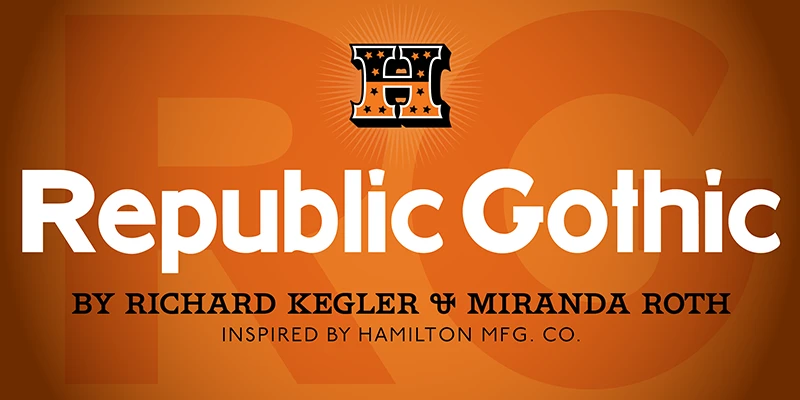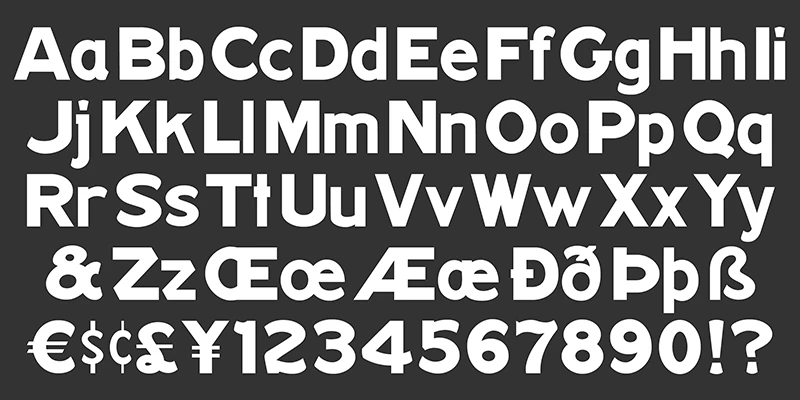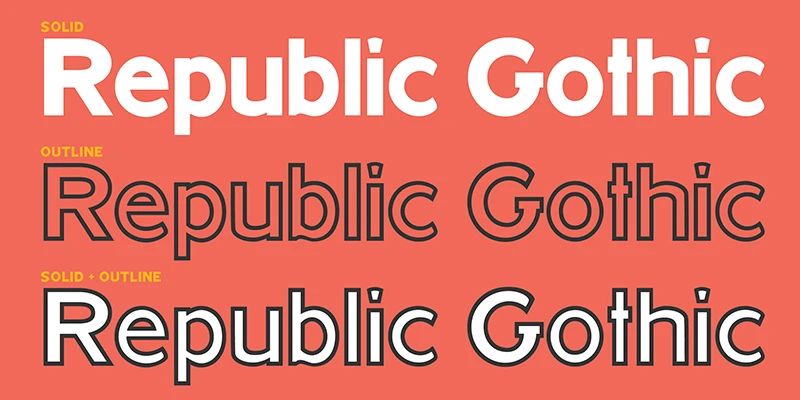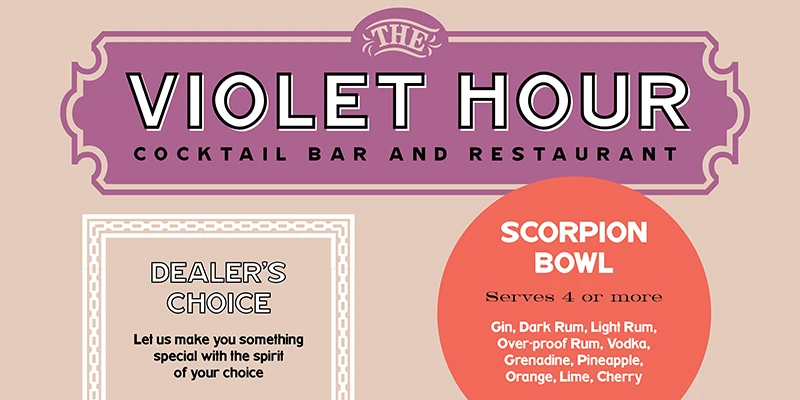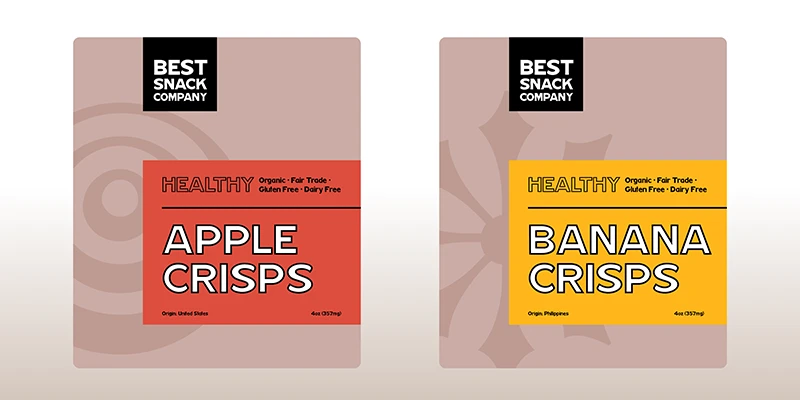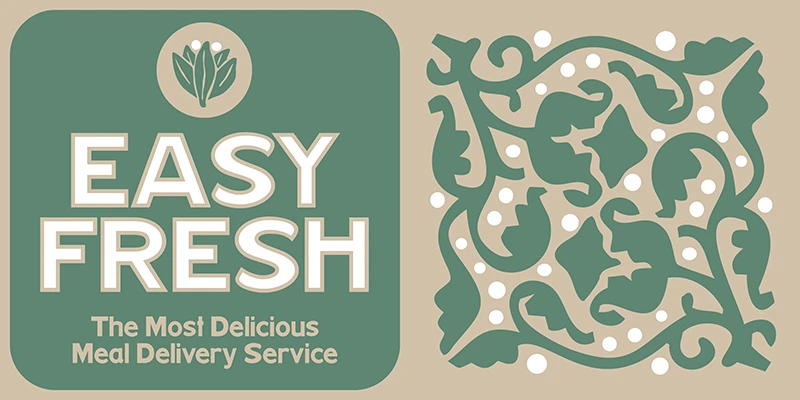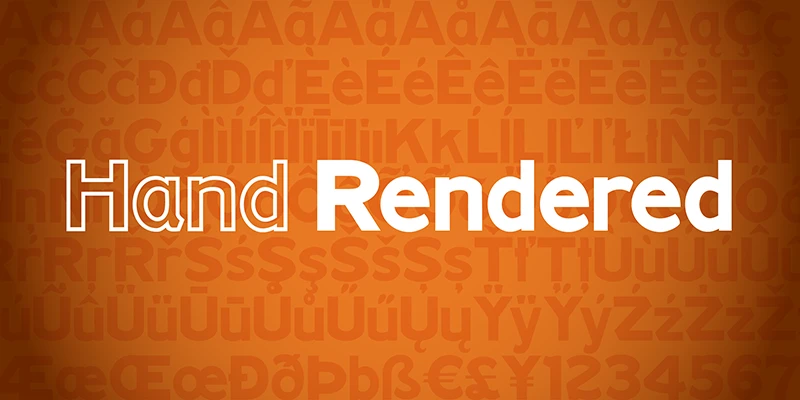
Republic Gothic
From Hamilton Wood Type Collection
Originally issued in six sizes as one of the last Hamilton Manufacturing Co. wood types, the digital HWT Republic Gothic is now a single-style affair. Miranda Roth and Richard Kegler based their design on the extended width, creating solid and outline versions. They can be used separately or overlayed to create color effects. The playful nature of Republic Gothic, with its handful of quirky characters, will add levity to any design, making it a lively alternative to every day sans serifs.
Designed by Richard Kegler & Miranda Roth Kirchmeyer
Republic Gothic Outline
Republic Gothic Solid